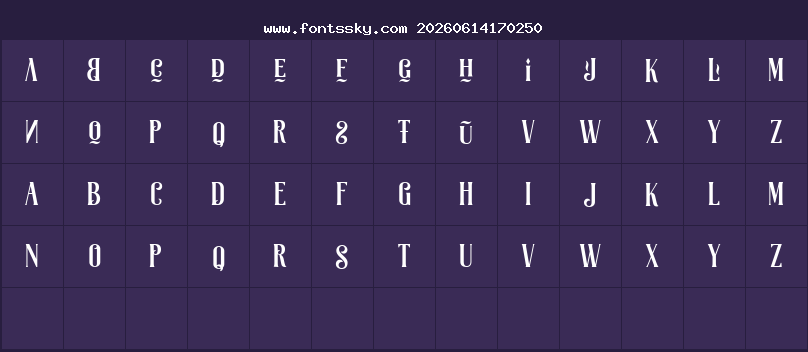
Swistblnk Moalang Melintang Preview
• Font Name: Swistblnk Moalang Melintang
• Full Font Name: Swistblnk Moalang Melintang
• Designer: Agga Swistblnk
• Manufacturer: Swistblnk
About Swistblnk Moalang Melintang.ttf
Swistblnk Moalang Melintang.ttf is a modern, elegant sans-serif font designed for ultimate readability and visual harmony. Perfect for branding, headlines, web design, and print materials.